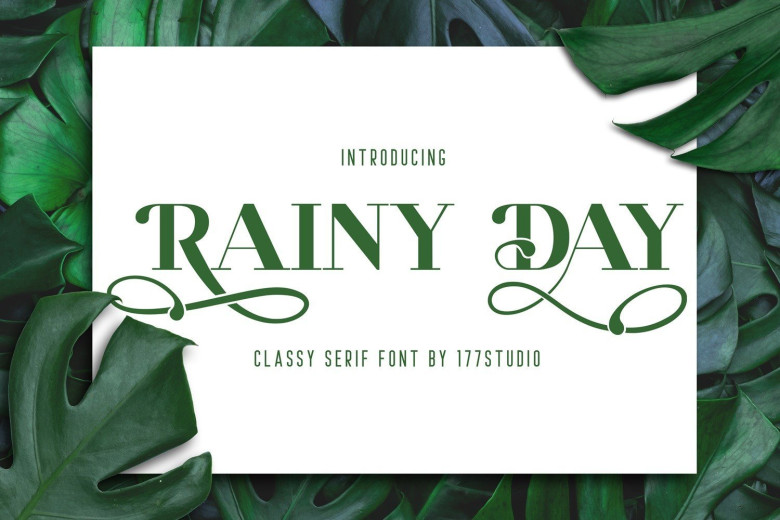
Rainy Day Classy Serif Font
Rainy Day Classy Serif Font is an elegant serif font that offers a wide range of possibilities, especially for a lot of alternative. Rainy Day font offers an attractive tool for producing elegant decorative lettering, for example, for book covers or for posters and packaging.
You want to make a greeting card or a package design, or even a brand identity, craft design, any DIY project, book title, wedding font, pop vintage design, retro design or any purpose to make your art / design project look Elegant and Classy? Feel free to play with this font!